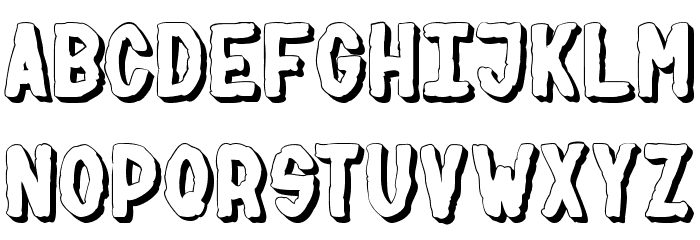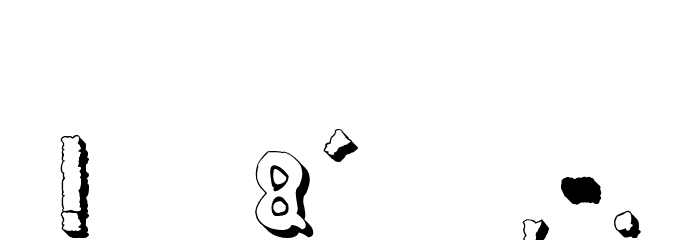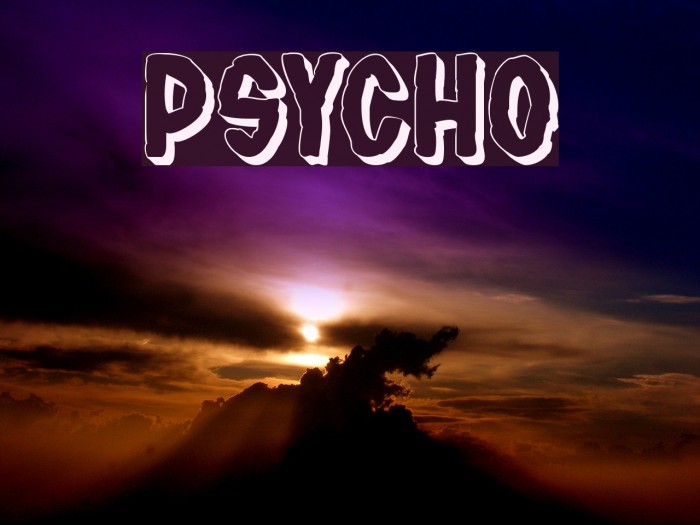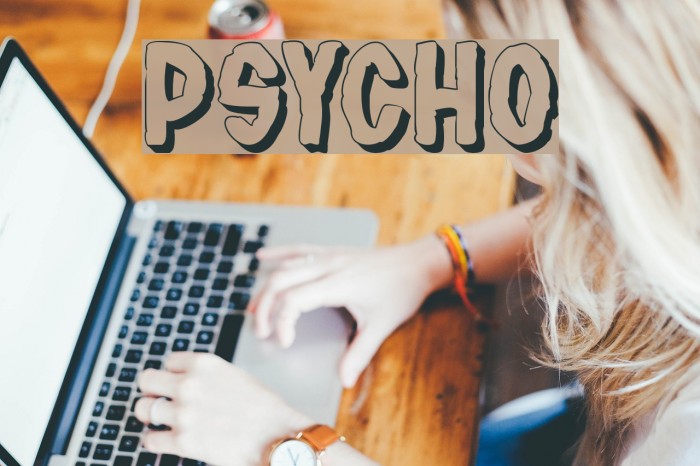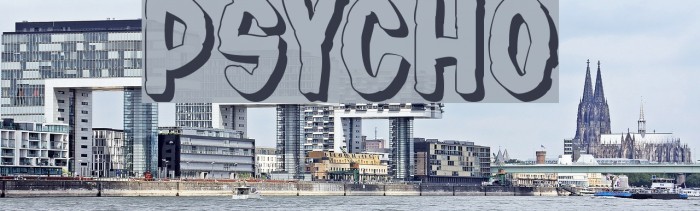
PSYCHO Font
This font exhibits a bold and playful style with a three-dimensional effect, giving the impression of letters popping out from the page. The characters are outlined with a thick black border, enhancing their visibility and adding a cartoonish feel. The interior of each letter is filled with a white color, creating a stark contrast against the black outline. The font's design is consistent across both uppercase and lowercase letters, maintaining a uniform appearance. The special characters also follow this design, ensuring a cohesive look throughout. This font is ideal for projects that require a fun and engaging visual impact.
A bold, playful font with a 3D effect and thick black outlines.
- Font: PSYCHO
- Proposed Projects: Ideal for comic books, children's books, posters, and playful branding.
- Overall Style: Playful, Cartoonish
- Use Case: Headlines, Posters, Branding